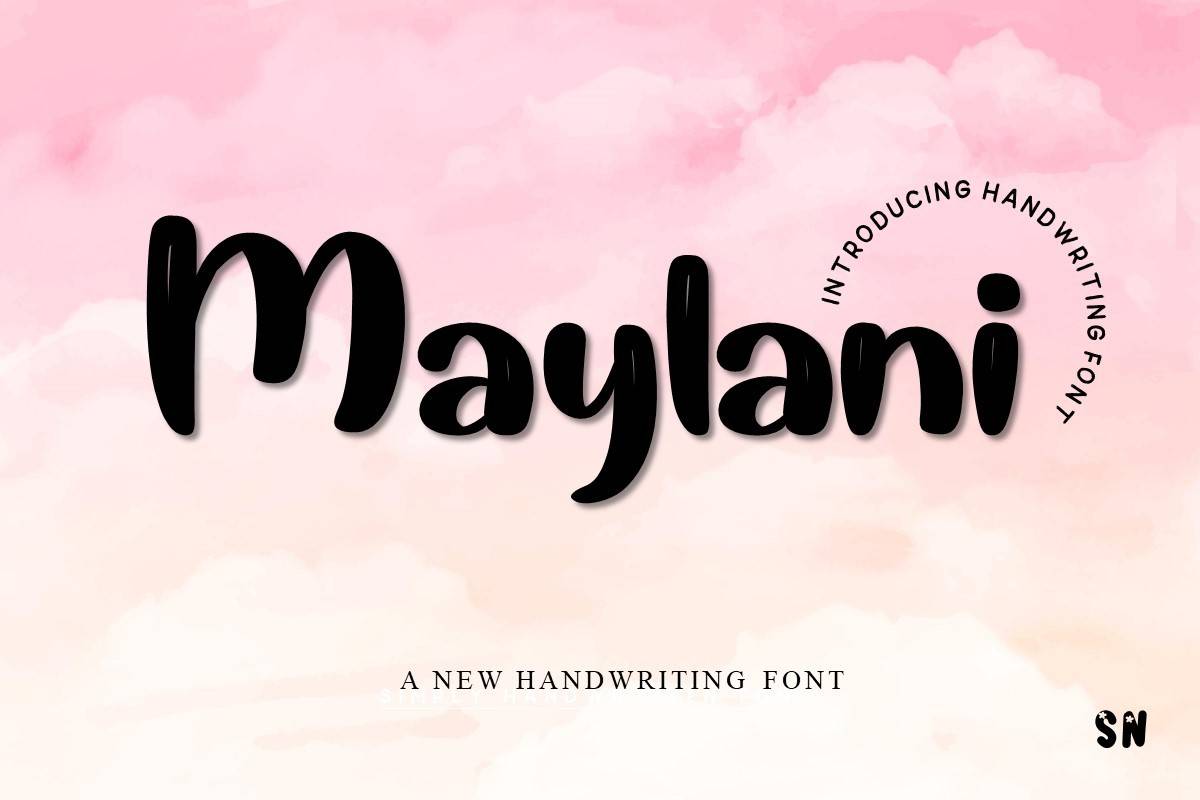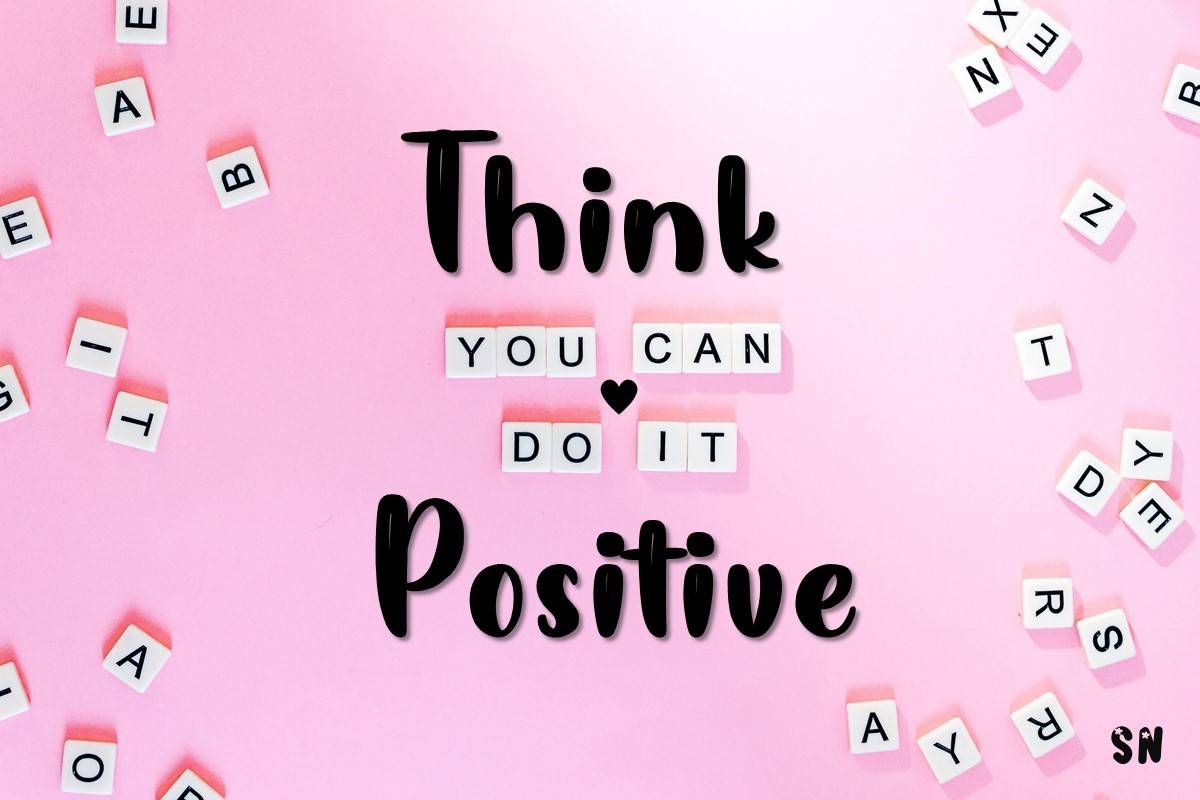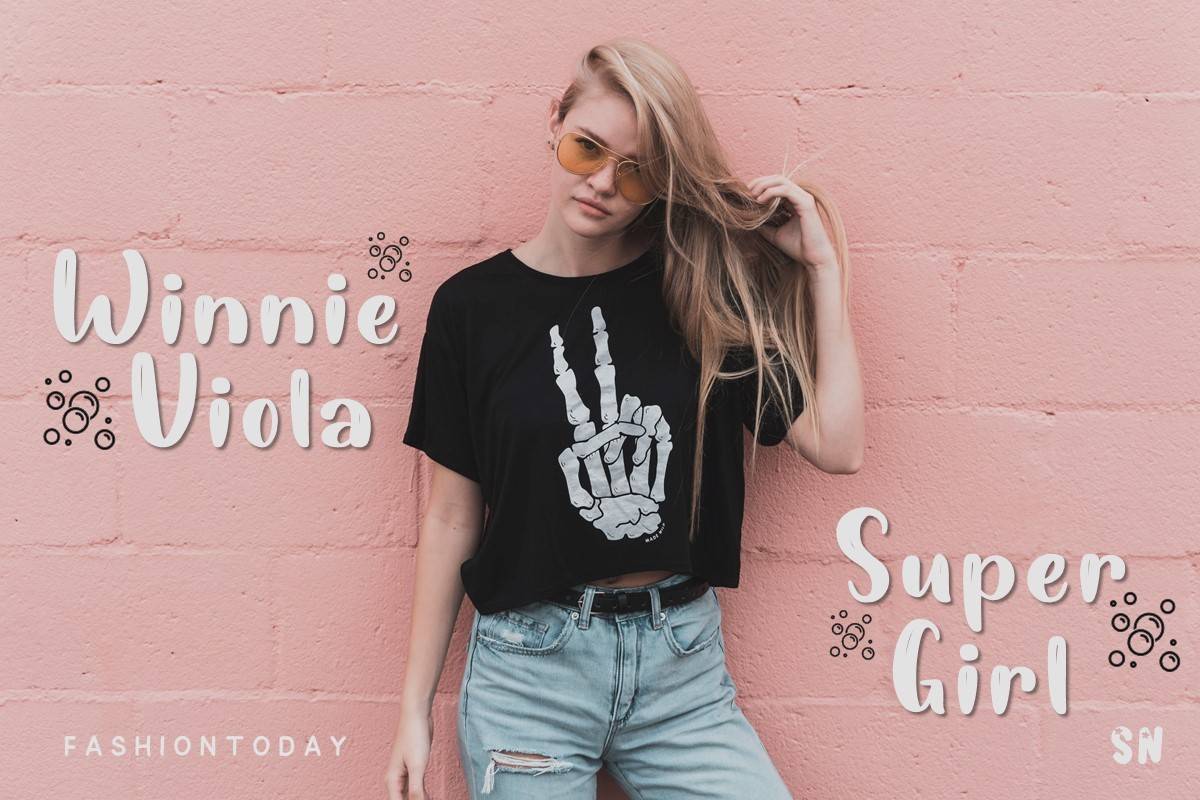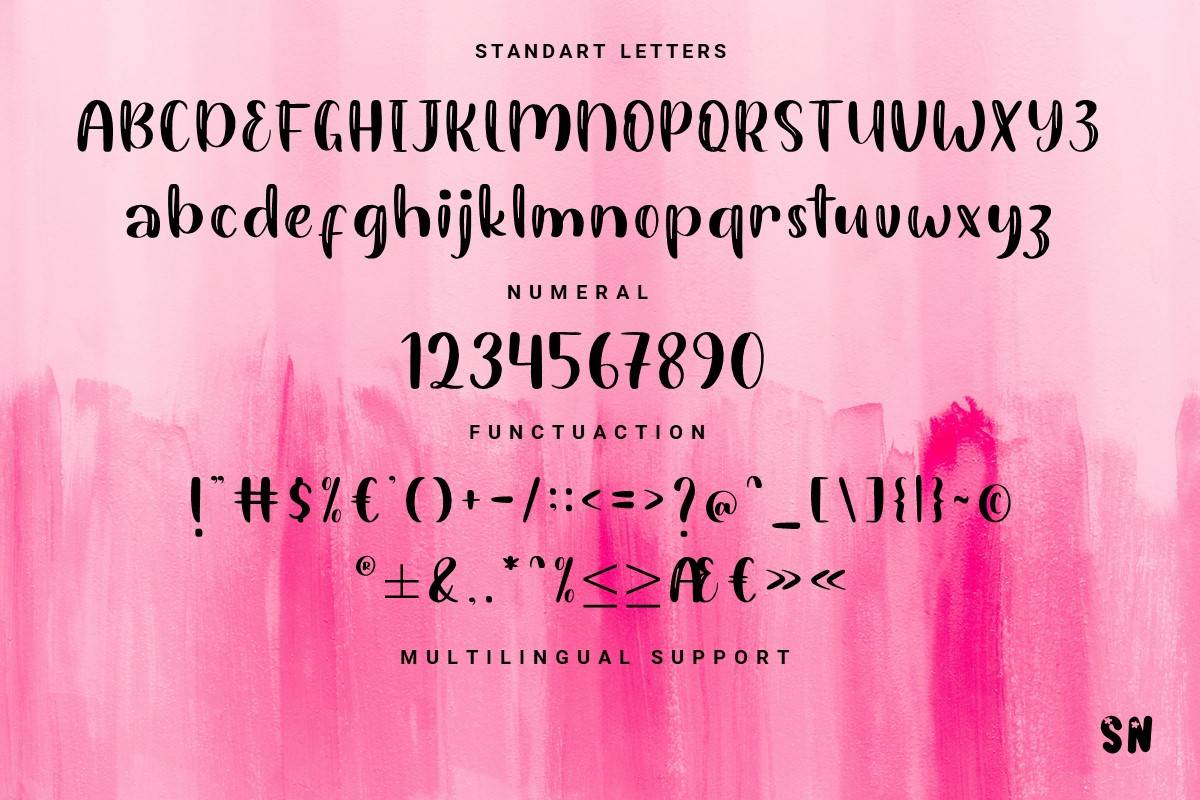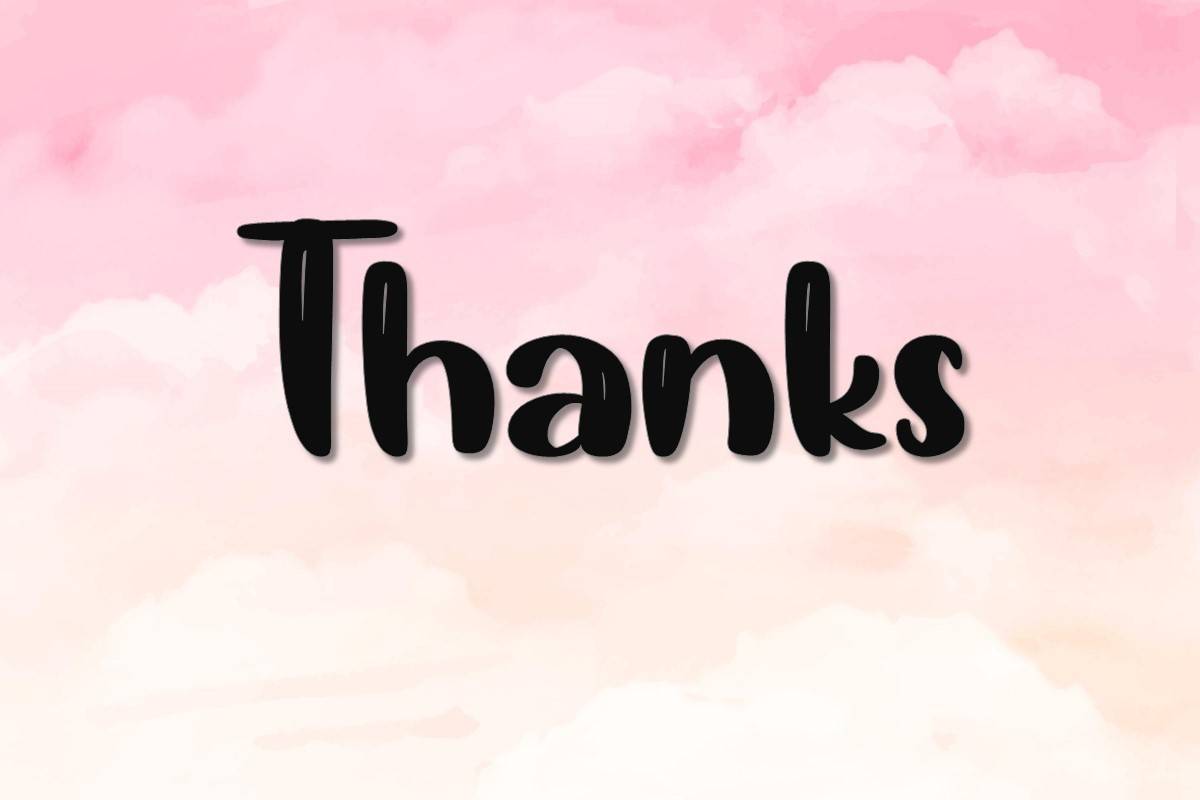
Maylani is a playful and friendly handwritten script font with a bold weight and narrow width, featuring smooth, rounded strokes and unique, quirky letterforms that give it a lively personality. Its high x-height and consistent stroke contrast make it readable and appealing, perfect for creative projects like logos, children's books, or casual branding where a fun, approachable vibe is desired. This font works well in headlines and display uses, bringing energy and charm to any design.
Maylani Font